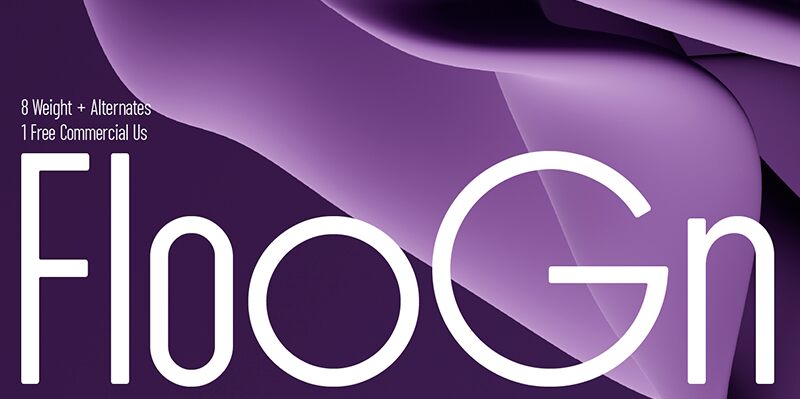
ZT Floogn Extra Bold
ZT Floogn Extra Bold is a captivating, sans-serif font designed by the talented Zelow Type. With its bold, condensed strokes and striking visual presence, this font commands attention and exudes a distinct sense of power and authority. The sharp, angular forms create a modern, cutting-edge aesthetic that evokes a sense of strength and confidence, while the condensed width adds a touch of elegance and refinement.
The ZT Floogn Extra Bold font's versatility and dynamic character make it an ideal choice for a wide range of design applications. Its bold, impactful presence lends itself well to headings, logos, and branding elements, where it can effectively grab the viewer's attention and leave a lasting impression. Additionally, the font's legibility and clean lines make it a suitable option for text-heavy applications, such as in editorial design or corporate communications, where readability and professionalism are paramount.